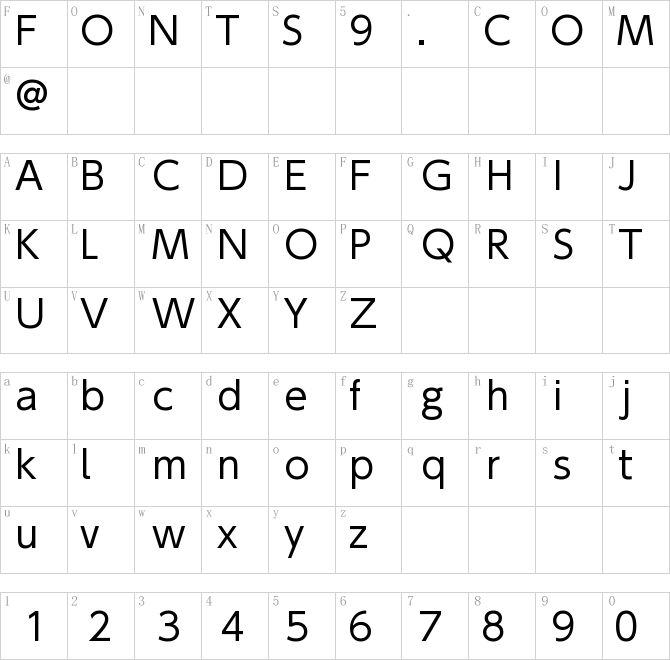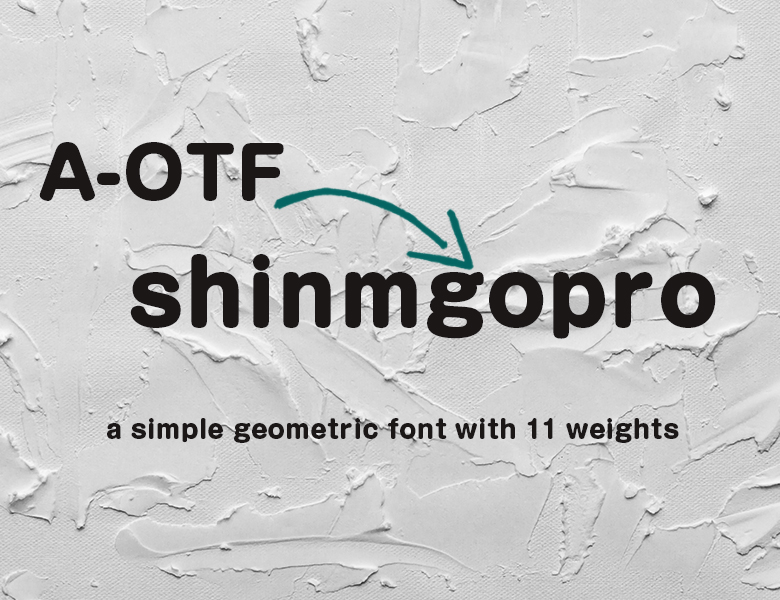
Shin Go Font
Shin Go Font - Shin go regular is a systematic and legible font for graphic design, advertising and signage. This font features clean, geometric lines with a modern and minimalist. It has uniform lines and blackness in both vertical and. A ud typeface with 1 style, available from adobe fonts for sync and web. Thousands of designers (famous or not) use the image font detection system to find a font or similar free fonts from an image. “ud shin go nt” is a universal design typeface that combines simple and friendly “neo today” kana with ud shin go.
A ud typeface with 1 style, available from adobe fonts for sync and web. “ud shin go nt” is a universal design typeface that combines simple and friendly “neo today” kana with ud shin go. It has uniform lines and blackness in both vertical and. Shin go regular is a systematic and legible font for graphic design, advertising and signage. This font features clean, geometric lines with a modern and minimalist. Thousands of designers (famous or not) use the image font detection system to find a font or similar free fonts from an image.
It has uniform lines and blackness in both vertical and. This font features clean, geometric lines with a modern and minimalist. “ud shin go nt” is a universal design typeface that combines simple and friendly “neo today” kana with ud shin go. Shin go regular is a systematic and legible font for graphic design, advertising and signage. Thousands of designers (famous or not) use the image font detection system to find a font or similar free fonts from an image. A ud typeface with 1 style, available from adobe fonts for sync and web.
“ud shin go nt” is a universal design typeface that combines simple and friendly “neo today” kana with ud shin go. Shin go regular is a systematic and legible font for graphic design, advertising and signage. Thousands of designers (famous or not) use the image font detection system to find a font or similar free fonts from an image. A.
“ud shin go nt” is a universal design typeface that combines simple and friendly “neo today” kana with ud shin go. A ud typeface with 1 style, available from adobe fonts for sync and web. Thousands of designers (famous or not) use the image font detection system to find a font or similar free fonts from an image. It has.
It has uniform lines and blackness in both vertical and. Shin go regular is a systematic and legible font for graphic design, advertising and signage. This font features clean, geometric lines with a modern and minimalist. Thousands of designers (famous or not) use the image font detection system to find a font or similar free fonts from an image. “ud.
“ud shin go nt” is a universal design typeface that combines simple and friendly “neo today” kana with ud shin go. Shin go regular is a systematic and legible font for graphic design, advertising and signage. It has uniform lines and blackness in both vertical and. Thousands of designers (famous or not) use the image font detection system to find.
“ud shin go nt” is a universal design typeface that combines simple and friendly “neo today” kana with ud shin go. A ud typeface with 1 style, available from adobe fonts for sync and web. Thousands of designers (famous or not) use the image font detection system to find a font or similar free fonts from an image. Shin go.
Shin go regular is a systematic and legible font for graphic design, advertising and signage. It has uniform lines and blackness in both vertical and. Thousands of designers (famous or not) use the image font detection system to find a font or similar free fonts from an image. A ud typeface with 1 style, available from adobe fonts for sync.
Thousands of designers (famous or not) use the image font detection system to find a font or similar free fonts from an image. This font features clean, geometric lines with a modern and minimalist. A ud typeface with 1 style, available from adobe fonts for sync and web. Shin go regular is a systematic and legible font for graphic design,.
Shin go regular is a systematic and legible font for graphic design, advertising and signage. Thousands of designers (famous or not) use the image font detection system to find a font or similar free fonts from an image. This font features clean, geometric lines with a modern and minimalist. A ud typeface with 1 style, available from adobe fonts for.
Shin go regular is a systematic and legible font for graphic design, advertising and signage. A ud typeface with 1 style, available from adobe fonts for sync and web. Thousands of designers (famous or not) use the image font detection system to find a font or similar free fonts from an image. This font features clean, geometric lines with a.
It has uniform lines and blackness in both vertical and. Thousands of designers (famous or not) use the image font detection system to find a font or similar free fonts from an image. “ud shin go nt” is a universal design typeface that combines simple and friendly “neo today” kana with ud shin go. Shin go regular is a systematic and legible font for graphic design, advertising and signage.